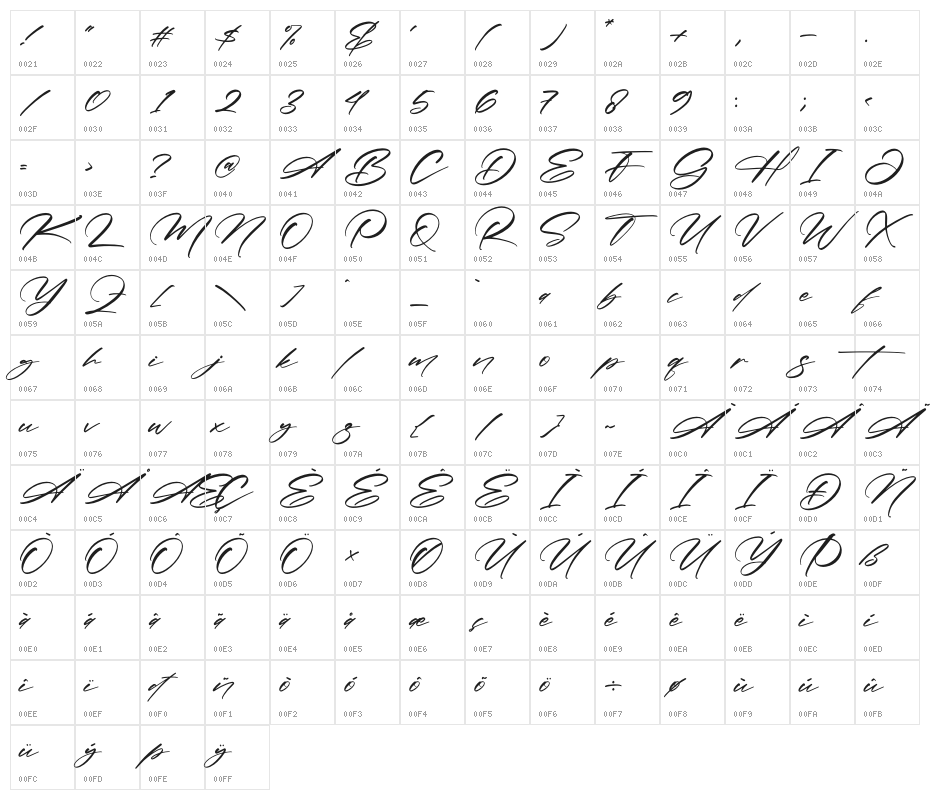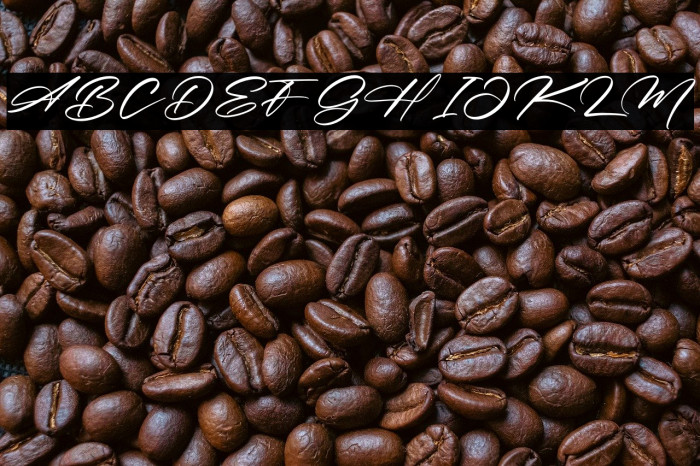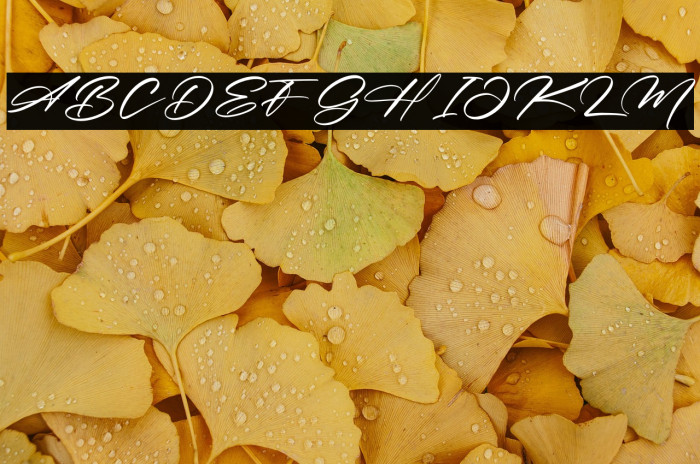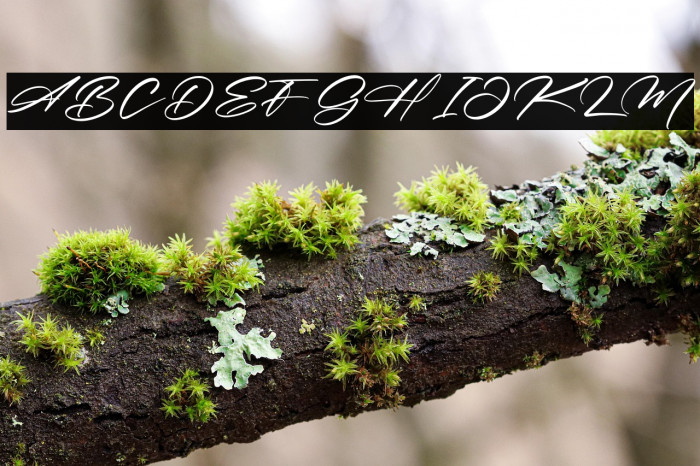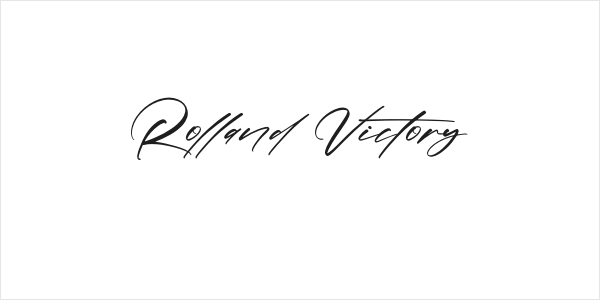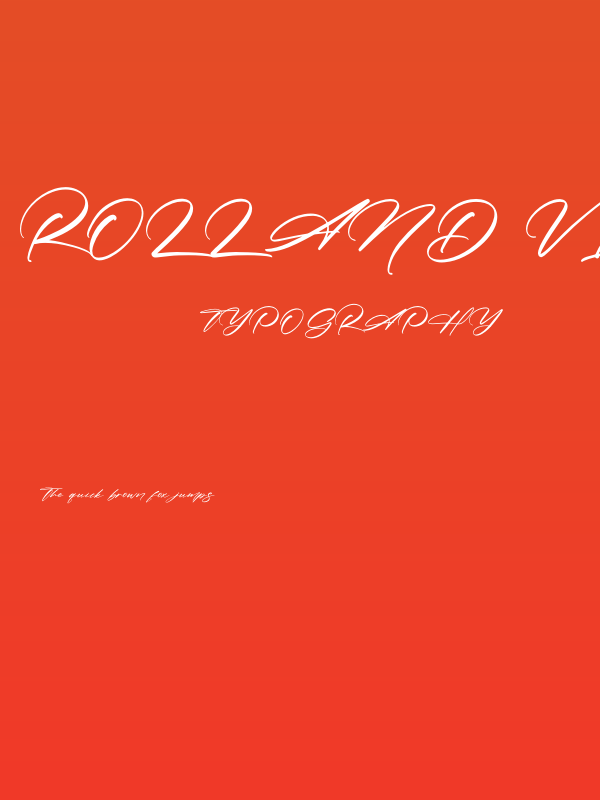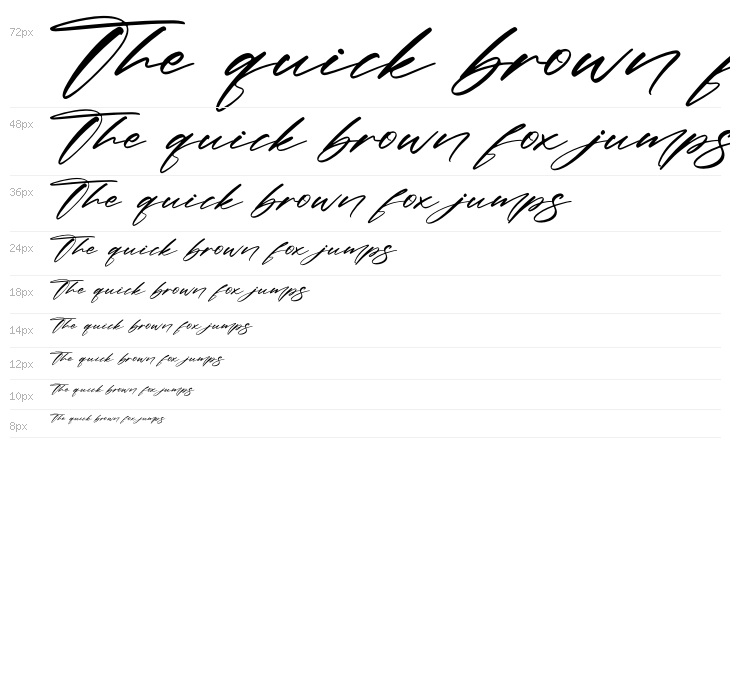
Rolland Victory Font
Rolland Victory Description
This font exudes elegance and fluidity, characterized by its cursive, handwritten style. The letters are interconnected with smooth, flowing lines that give it a dynamic and graceful appearance. The strokes vary in thickness, adding a natural and organic feel to the text. The uppercase letters are slightly more elaborate, with decorative loops and swirls, while the lowercase letters maintain a consistent, flowing script. The numerals and special characters are designed to match the overall aesthetic, ensuring a cohesive look across all text elements.
| Overall Style | Elegant, Handwritten |
| Proposed Projects | Ideal for wedding invitations, greeting cards, personal branding, and elegant logo designs. |